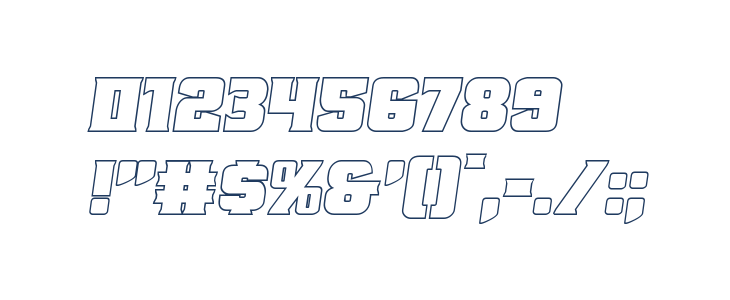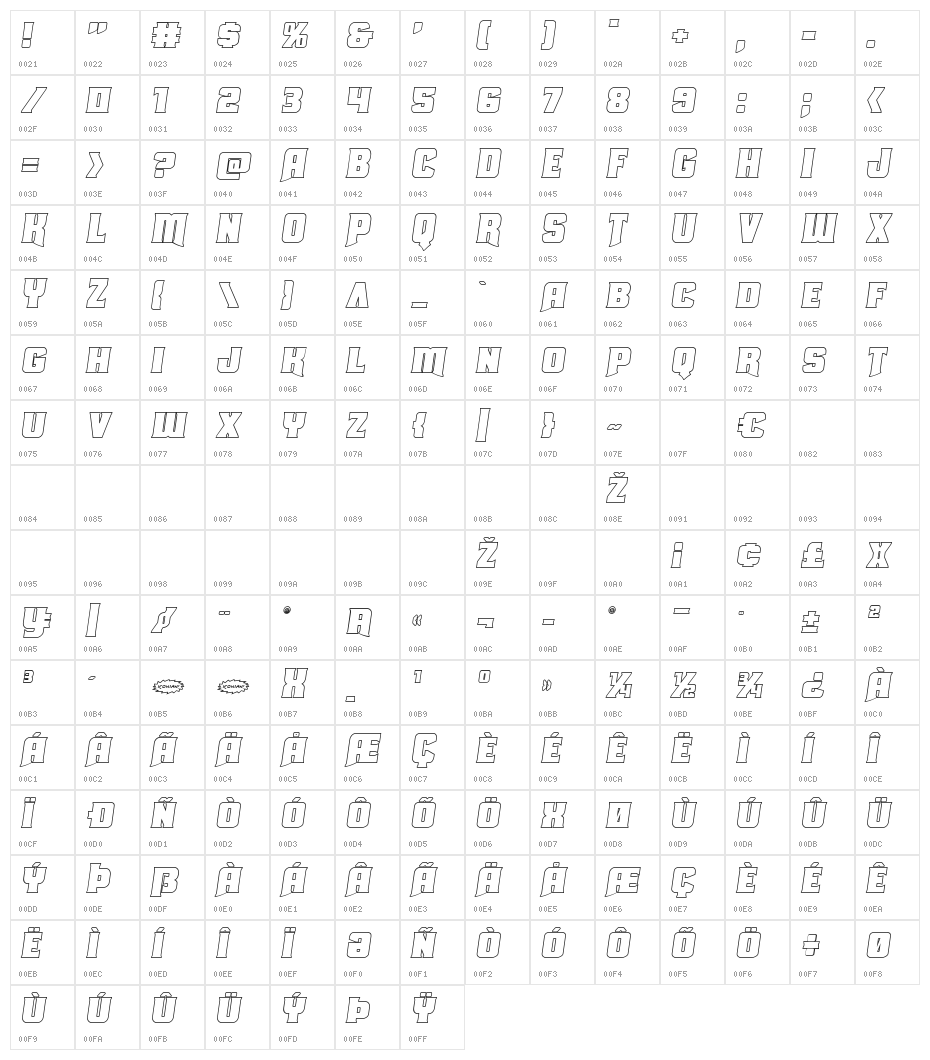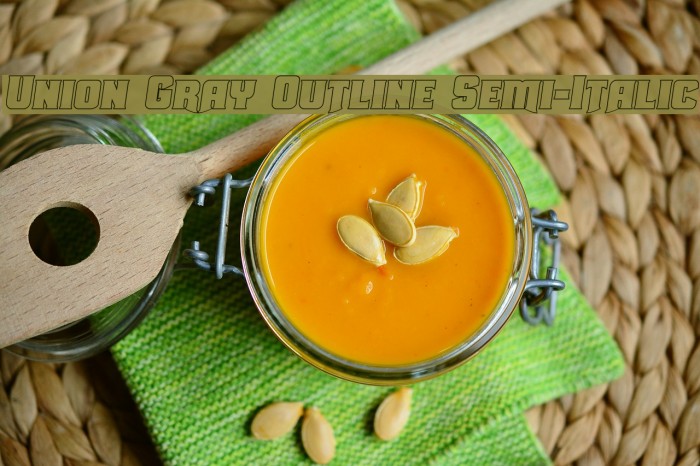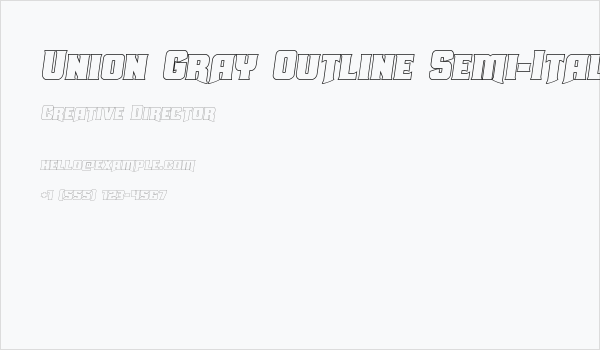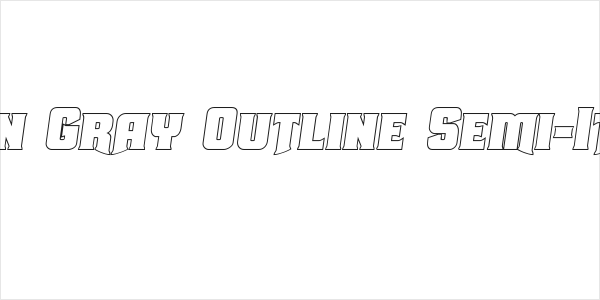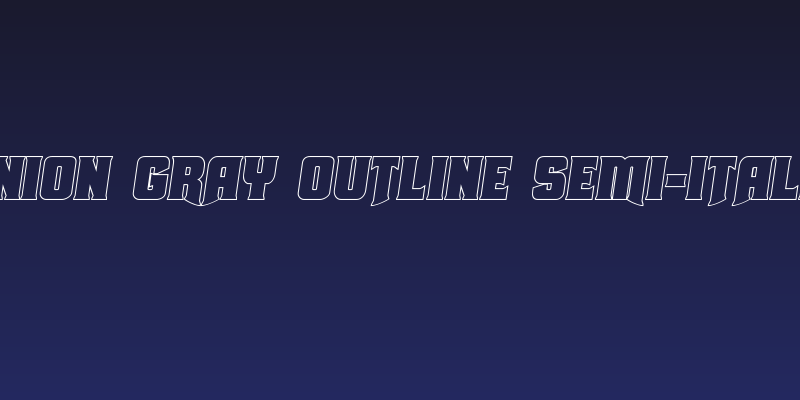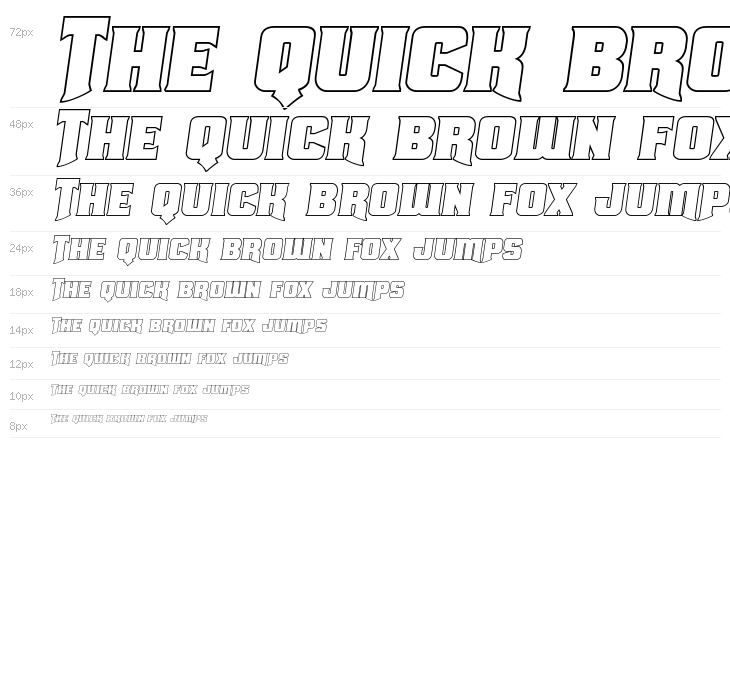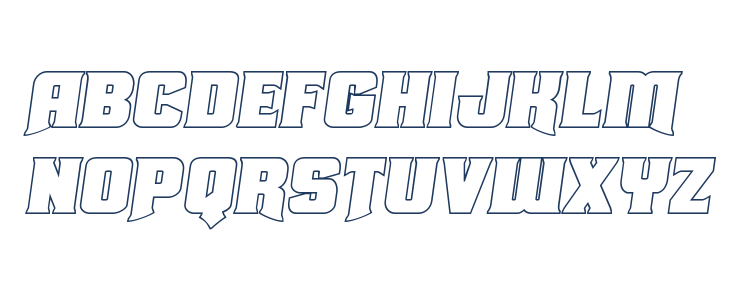
Union Gray Outline Semi-Italic Font
Union Gray Outline Semi-Italic Description
This font features a bold, outlined style with a semi-italic slant, giving it a dynamic and modern appearance. The uppercase and lowercase letters are designed with sharp angles and a consistent stroke width, creating a cohesive and striking look. The numbers and special characters maintain the same outlined style, ensuring uniformity across all characters. The font's semi-italic nature adds a sense of movement and energy, making it ideal for attention-grabbing designs.
| Proposed Projects | This font is perfect for creating eye-catching headlines, posters, branding materials, and logos that require a modern and dynamic touch. |